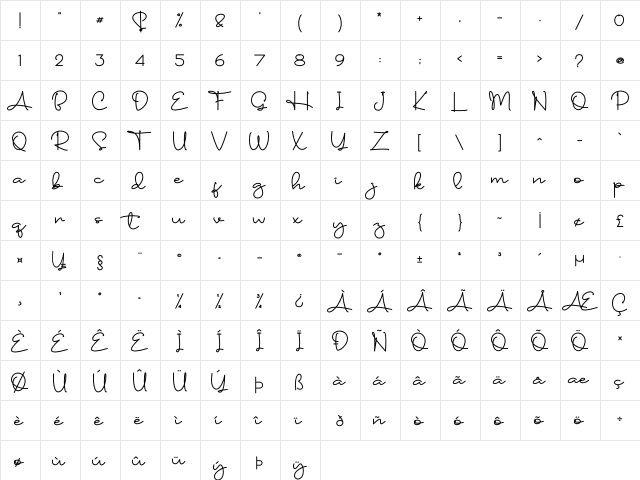
Standing Classy - Personal Use Regular Font Preview
Standing Classy - Personal Use Regular
Standing Classy - Personal Use Regular Font Details
| Designer | Sarwo Edhi Prayitno |
Design Context for Standing Classy - Personal Use Typeface
Standing Classy - Personal Use takes a measured approach to typography — its balanced proportions and neutral character make it a reliable workhorse for both digital and print work.